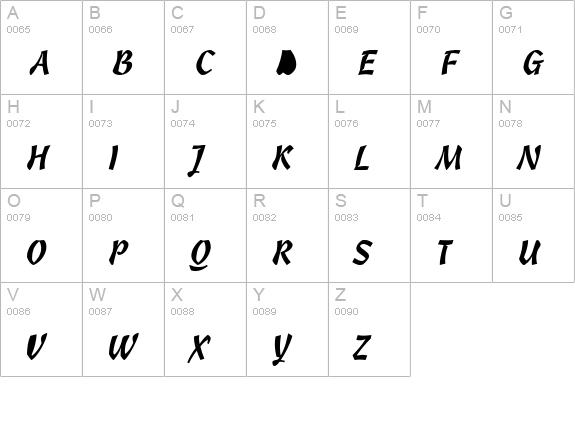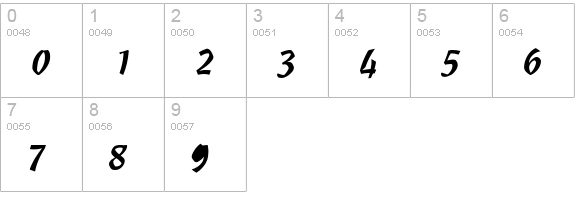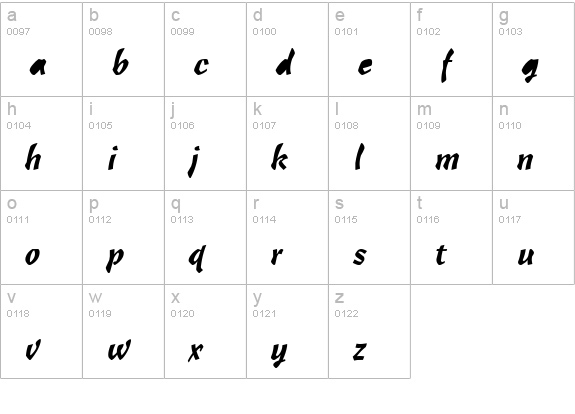
Ole' Script Light SSi Light Font Details
Ole' Script Light SSi Light is a refined, elegant variant in the Ole' typeface family \xE2\x80\x94 well suited to elegant body text, refined sub-headings, and luxury branding.
Ole' Script Light SSi Light font is a charming and elegant typeface that exudes a sense of sophistication and class. With its delicate strokes and graceful curves, this font is perfect for adding a touch of refinement to any design project. What's even better is that Ole' Script Light SSi Light font is available for free download at FontsMarket.com. This means you can easily access this beautiful font to enhance your creative work without having to spend a penny. Whether you're designing invitations, logos, posters, or any other project, Ole' Script Light SSi Light font is sure to elevate your design with its timeless appeal. Download it today and let your creativity shine!